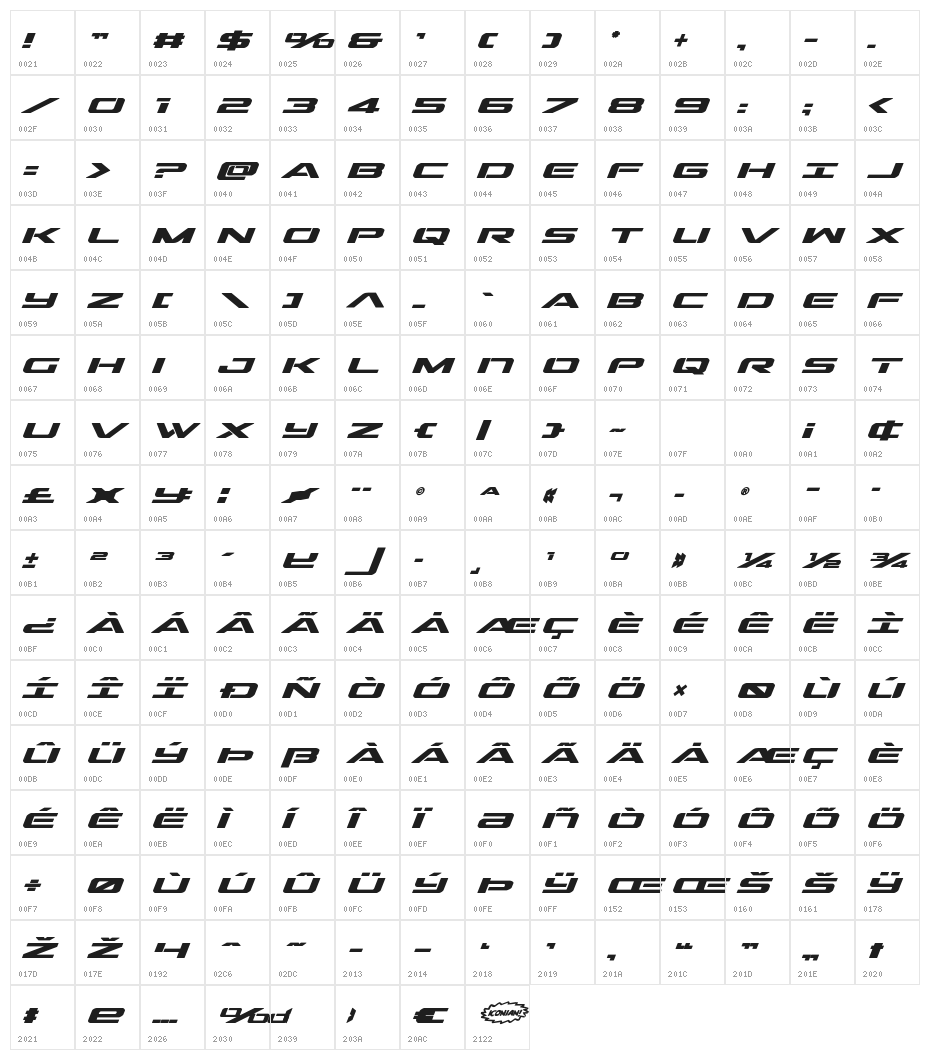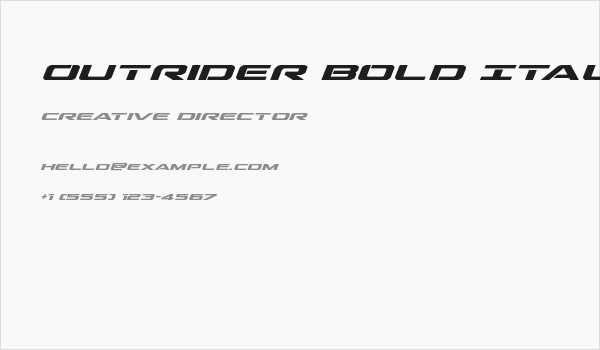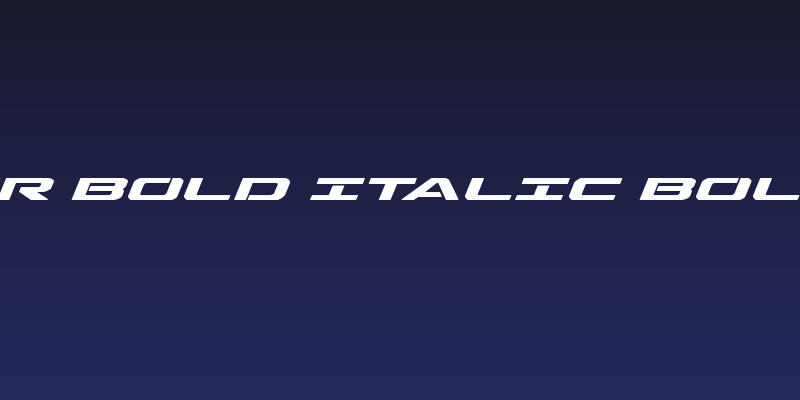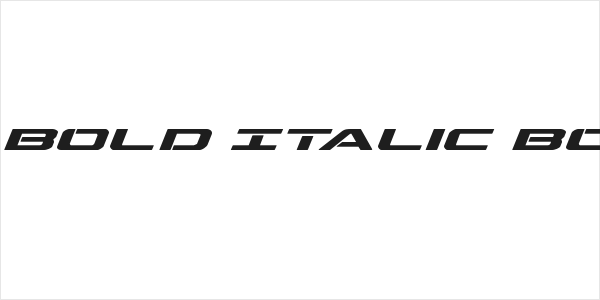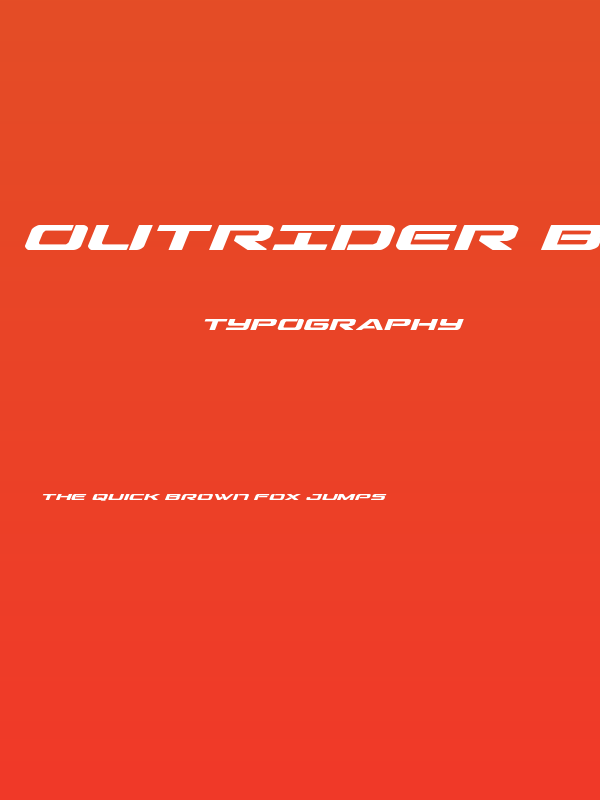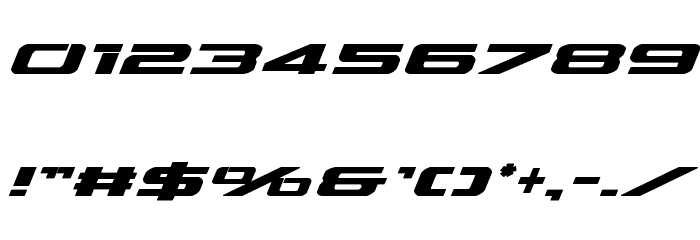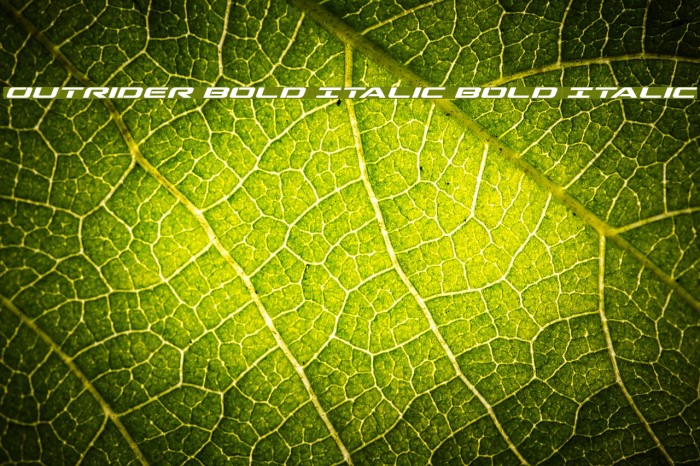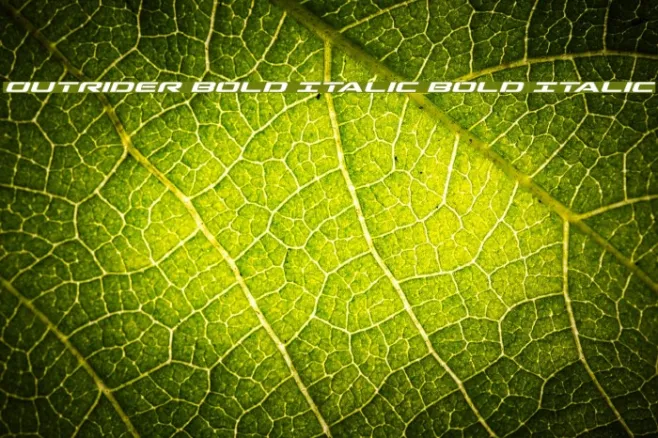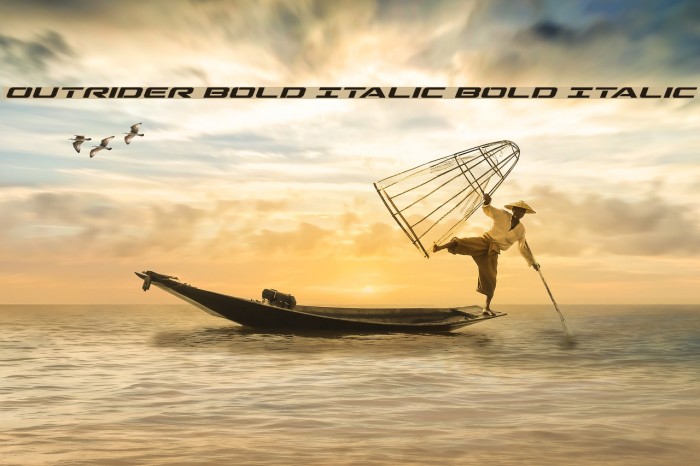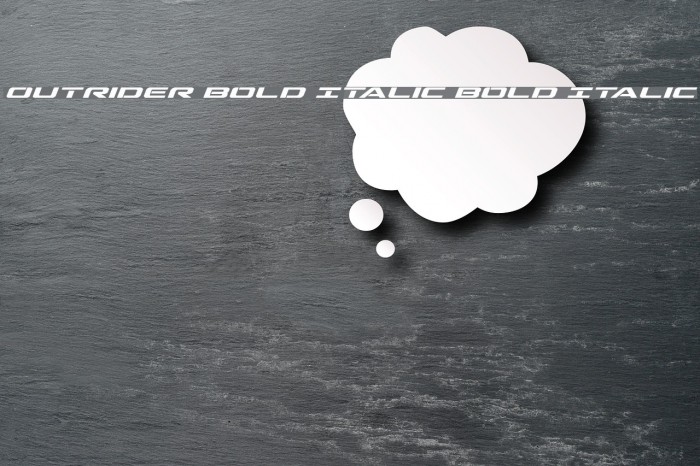
Outrider Bold Italic Font
Outrider Bold Italic Description
This font exhibits a dynamic and futuristic style with its bold and italicized characters. The letters are sharply angled, giving a sense of motion and speed. The uppercase and lowercase letters maintain a consistent slant, enhancing the italic effect. The numbers and special characters follow the same design principles, ensuring uniformity across all glyphs. The font's design is sleek and modern, making it suitable for projects that require a contemporary and energetic look.
| Use Case | Logos, Headlines, Branding |
| Proposed Projects | Ideal for branding, sports team logos, automotive designs, and tech-related projects. |